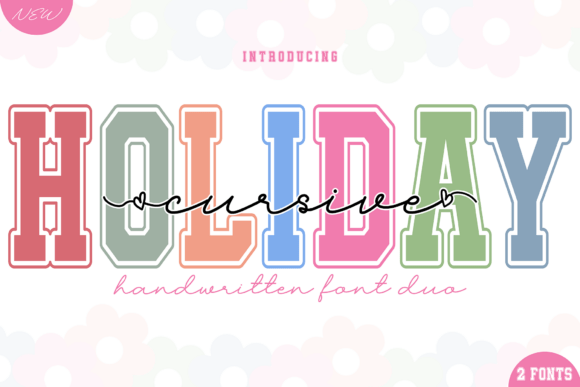
✨ Bring Holiday Cheer to Your Designs with Holiday Cursive Font! ✨
As a designer, there’s nothing quite like the feeling of creating something special for a loved one. Whether it’s a holiday card, a wedding invitation, or a thoughtful gift for a teacher, the right font can make all the difference. And that’s where the Holiday Cursive Font comes in – a beautiful, handwritten script font that adds a touch of elegance and playfulness to any design.
With its smooth, natural handwriting style and perfect pairing with the “Holiday College” font, the Holiday Cursive Font is a valuable addition to any designer’s toolkit. It’s perfect for adding a personal touch to holiday cards and invitations, teacher gifts, and even Cricut & Silhouette projects. Whether you’re a seasoned pro or just starting out, the Holiday Cursive Font is sure to bring your designs to life and make them stand out from the crowd.
Holiday Cursive Font Key Features
- Font Style: Elegant, handwritten cursive script ideal for festive and seasonal designs.
- Unique Characteristics: Includes a range of swashes, flourishes, and ornaments to add a touch of whimsy and festivity to designs.
Review of Holiday Cursive Font
I recently had the chance to work with the Holiday Cursive Font, and I must say it’s a unique addition to any design project. ✨ One of the things that stood out to me was its ability to evoke a sense of nostalgia and warmth, perfect for holiday-themed designs or invitations. The font’s swashes and flourishes add a touch of elegance, making it suitable for wedding invitations, greeting cards, or any other special occasion.
However, there are a few limitations to consider: ⚠️ The font may not be suitable for all design projects, particularly those requiring a more modern or minimalist aesthetic. Additionally, some users may find the font’s swashes and flourishes too ornate or distracting.
Overall, I’d give the Holiday Cursive Font 4 out of 5 stars. While it may not be the best fit for every design project, it’s a great choice for those looking to add a touch of elegance and nostalgia to their work. With a little creativity and customization, this font can be a valuable addition to any designer’s toolkit.
Tips for Getting the Most Out of the Holiday Cursive Font
Use the Holiday Cursive Font to add a festive touch to your designs.
Pair the font with bold or italic fonts to create a striking contrast.
Use the Holiday Cursive Font for:
Christmas and holiday greeting cards.
Party invitations and decorations.
Seasonal social media graphics and ads.
Alternatives to Holiday Cursive Font
Great Vibes is a modern script font that features elegant, flowing lines. It’s perfect for creating a sophisticated and luxurious feel in your designs. Great Vibes is a great alternative to Holiday Cursive Font when you want to add a touch of elegance and sophistication to your typography.
Compared to Holiday Cursive Font, Great Vibes has a more refined and polished look, making it suitable for high-end branding and advertising projects.
Carolyna Pro is a beautiful script font that features a mix of elegant and playful lines. It’s perfect for creating a warm and inviting feel in your designs. Carolyna Pro is a great alternative to Holiday Cursive Font when you want to add a touch of whimsy and personality to your typography.